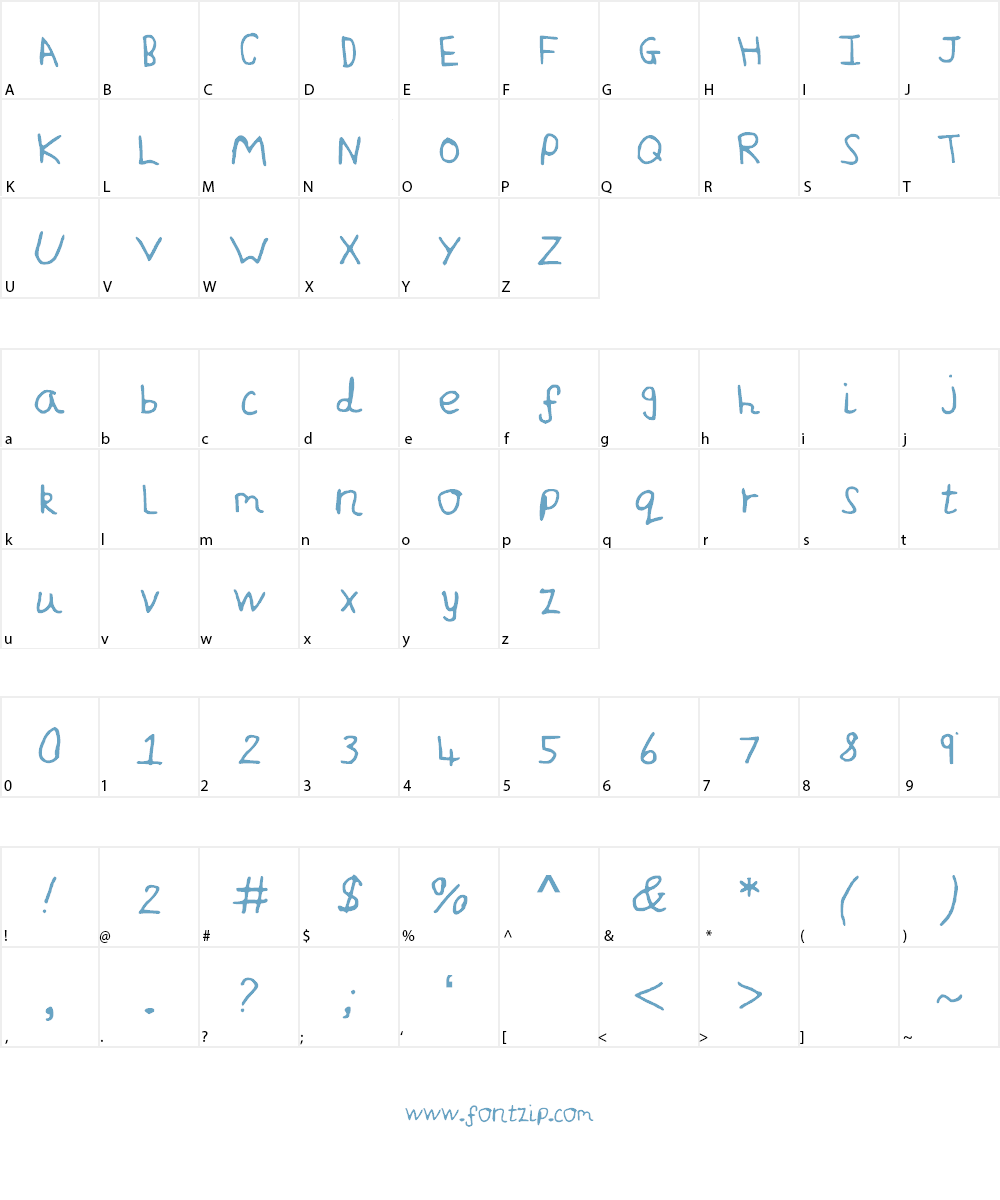
Handwritten font by 9 year old Jake Evans. This is the true handwriting of a 9 year old child you can't get any closer than that! Feel free to tell us what you think.. :) Happy downloading